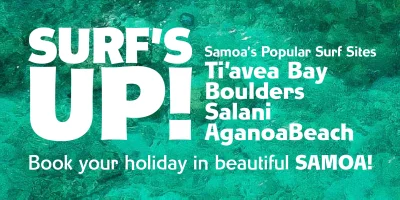
Churchward Samoa Font
Churchward Samoa Font is perfect for Pacific island resort branding, tropical tourism marketing, cultural heritage projects, Polynesian restaurant menus, surf shop logos, island festival promotions, traditional tattoo designs, and authentic oceanic campaigns.
This font is exciting because it captures the authentic spirit of Polynesian culture with traditional island elegance and oceanic heritage. Churchward Samoa Font features distinctive letterforms inspired by Pacific island typography that honor Samoan cultural traditions, making it ideal for projects that require genuine cultural authenticity and tropical sophistication.
The Churchward Samoa Font family includes regular, bold, condensed, and decorative variants, along with traditional alternates and cultural ligatures that enhance its Polynesian character. Each weight maintains the font's authentic aesthetic while providing different levels of cultural expression for various Pacific island and tropical design applications.
Whether you're developing authentic island brands, creating compelling tropical tourism materials, or designing cultural celebration campaigns, Churchward Samoa Font delivers exceptional authenticity and oceanic appeal. Its distinctive Polynesian style makes it an excellent choice for designers seeking to add genuine island heritage and tropical elegance to their projects. The font's versatility extends from resort signage to cultural documentation, ensuring consistent performance across all Pacific island applications. With its respectfully crafted letterforms and cultural proportions, this typeface provides professional results that honor island traditions and establish authentic brand presence with its unmistakable Samoan character and traditional Pacific elegance.